Here are 41 modern fonts that are trending in 2025, perfect for creating sleek, stylish, and trendy web and graphic designs:
1. Suisse Int’l
- A clean, modern sans-serif font that’s perfect for corporate and professional designs.
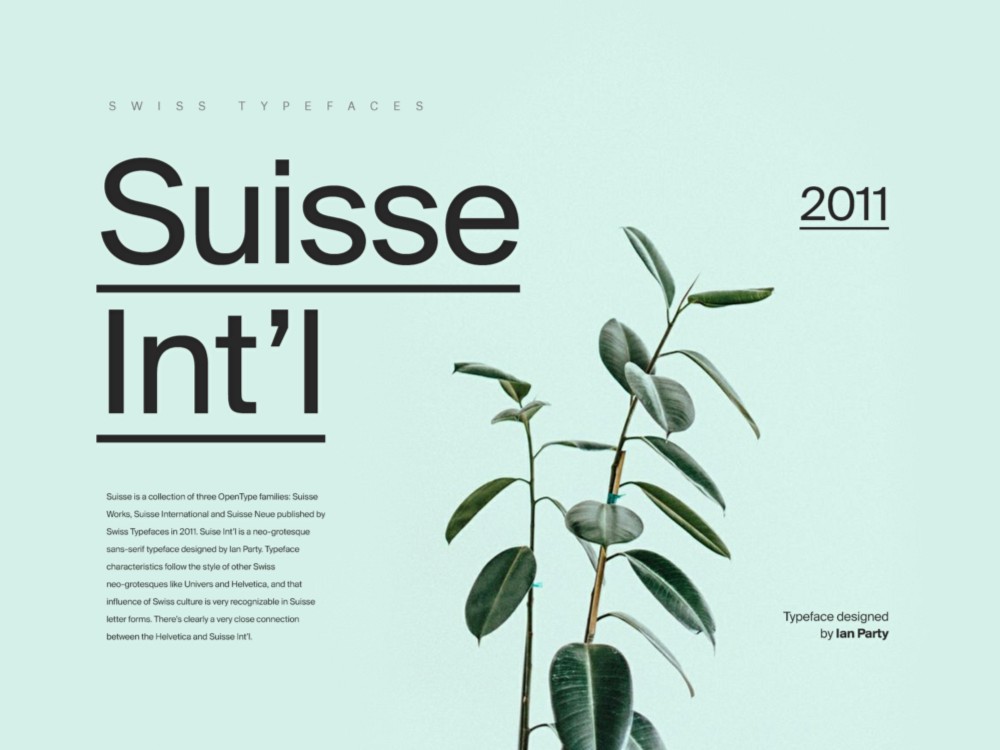
2. Inter
- A versatile typeface with exceptional readability, designed for both screen and print.
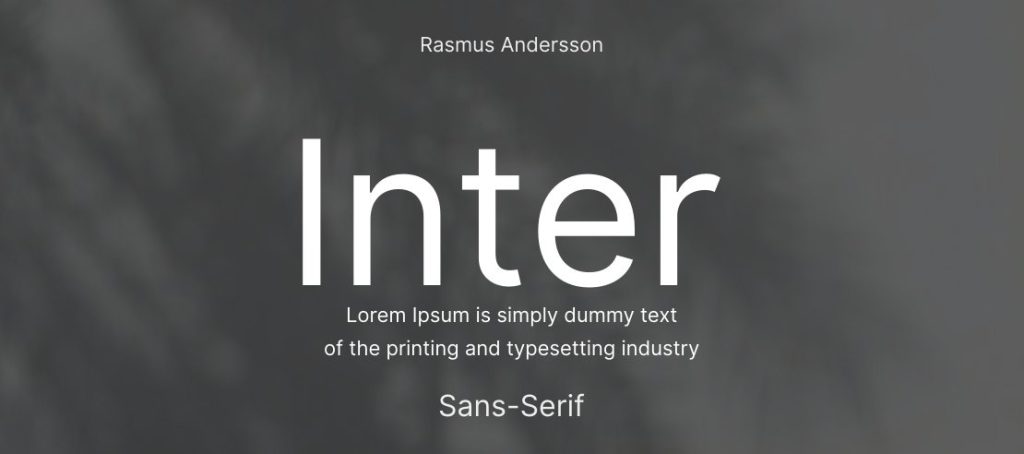
3. Poppins
- Rounded, geometric sans-serif font ideal for bold, contemporary designs.
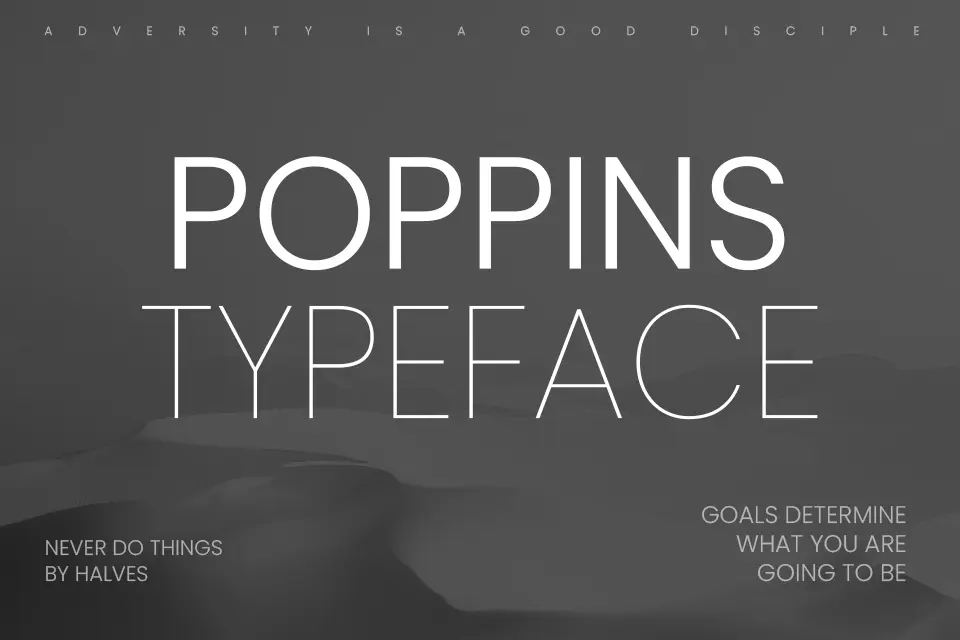
4. Futura
- A classic geometric sans-serif, timeless and modern, widely used in design and branding.
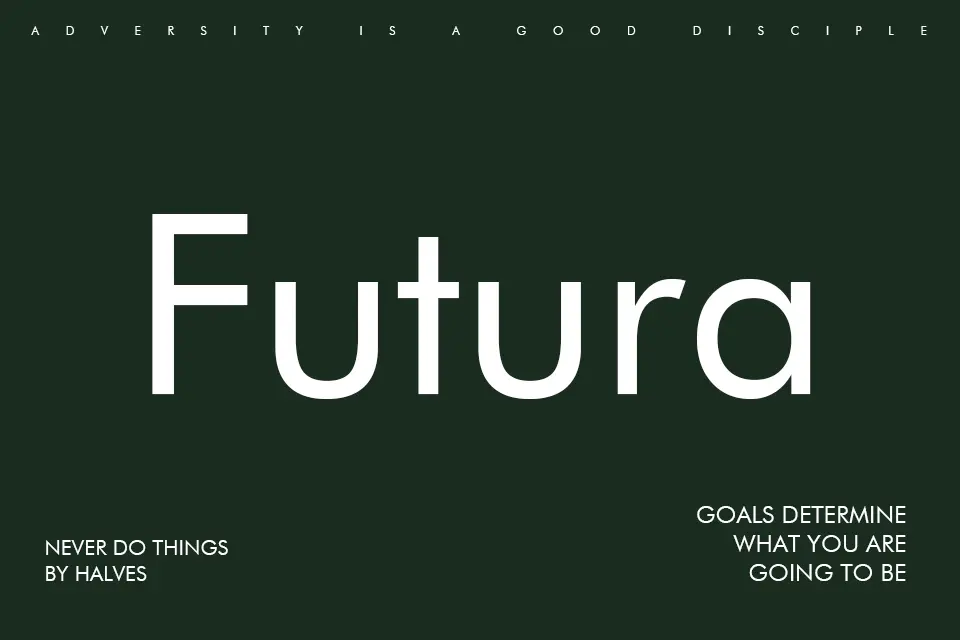
5. Circular
- A rounded sans-serif that has gained popularity for its soft, approachable design.
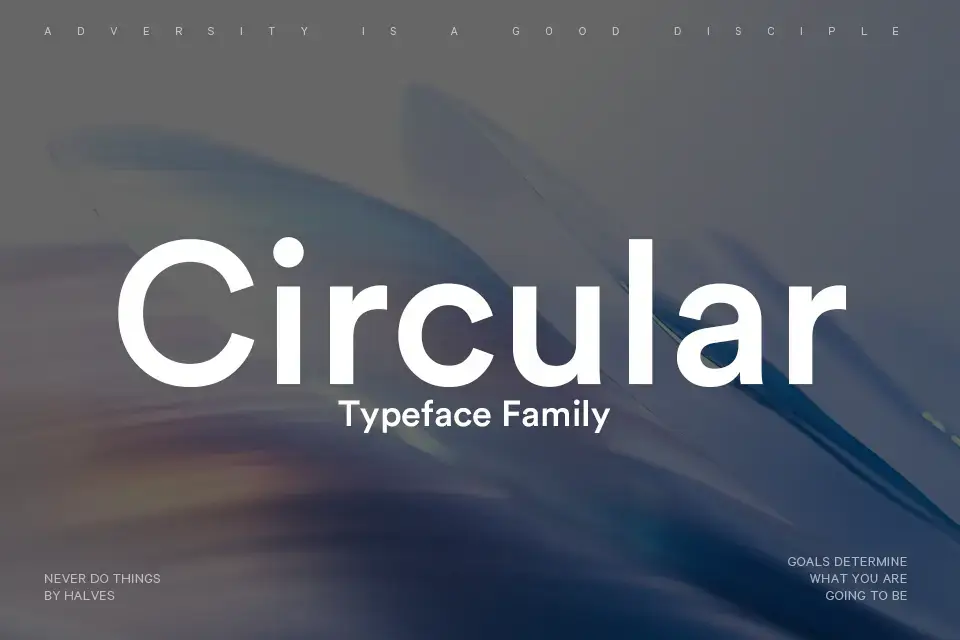
6. Lora
- A serif font with roots in calligraphy, providing a perfect blend of classic and modern aesthetics.
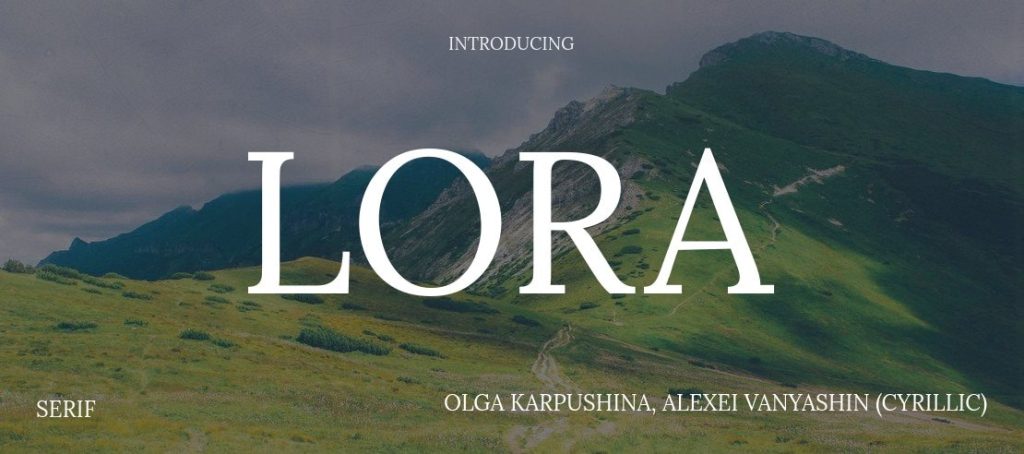
7. Avenir Next
- A refined and elegant typeface with a modern feel, excellent for minimalist designs.
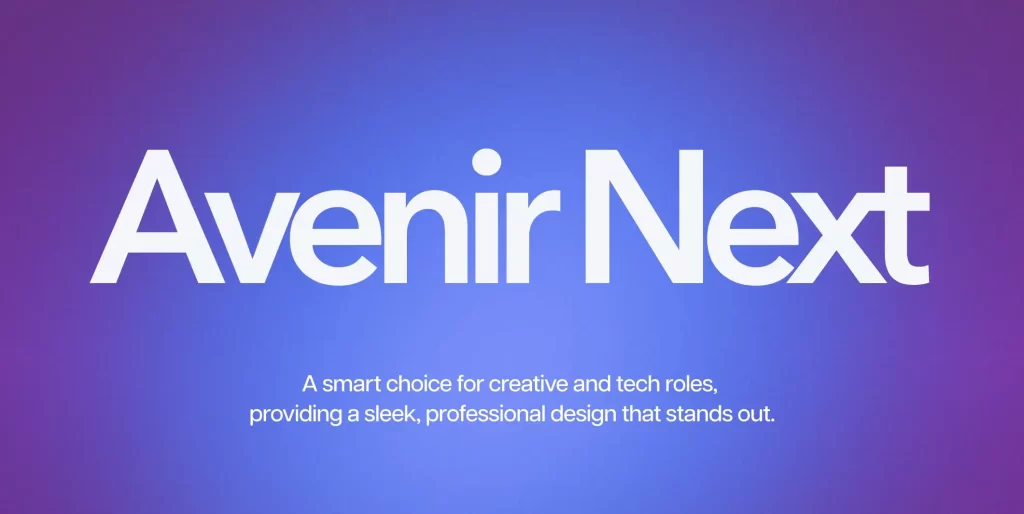
8. Roboto
- One of the most popular Google Fonts, perfect for both body text and headings with its versatile, clean design.
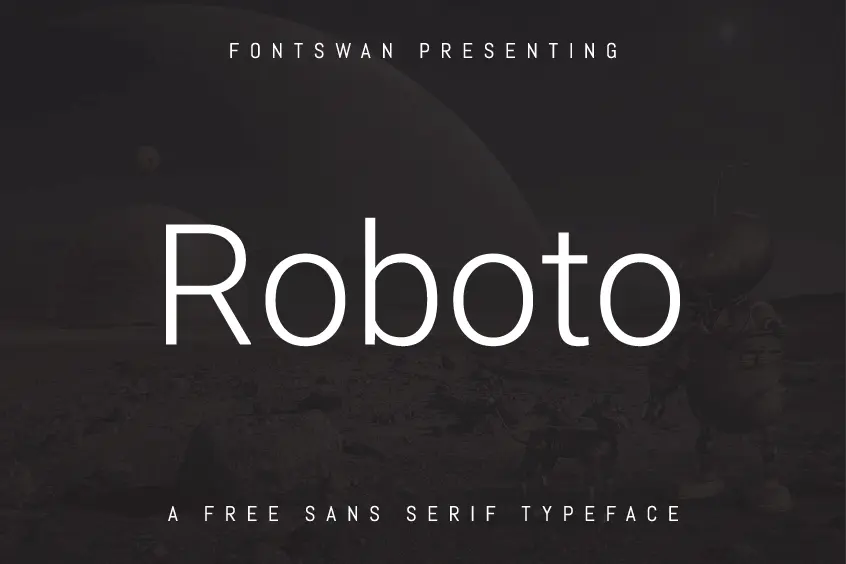
9. Montserrat
- A contemporary sans-serif with a distinct urban feel, often used for web headings and branding.
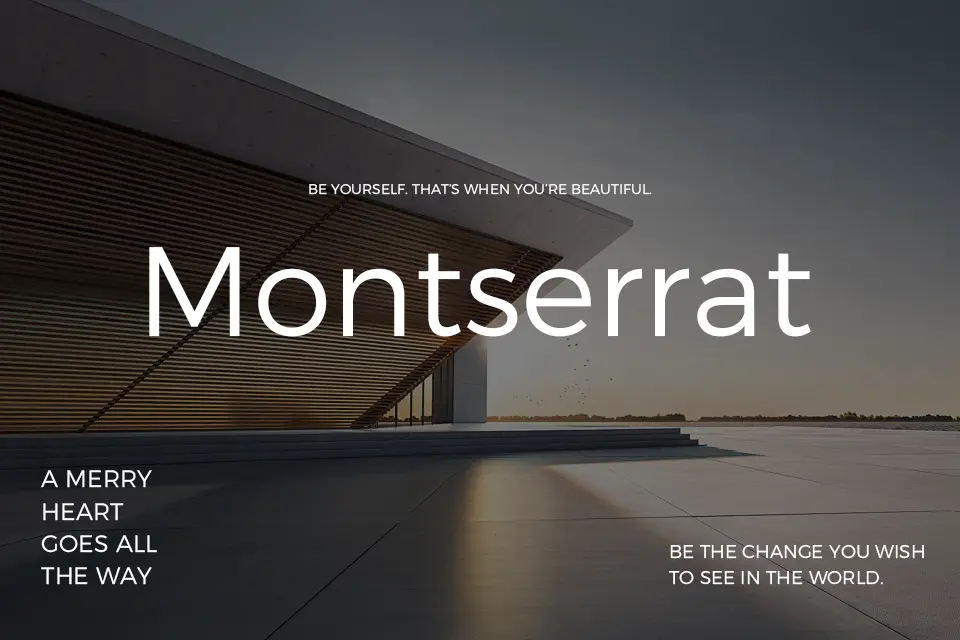
10. Playfair Display
- A modern serif with high contrast and old-style charm, great for fashion, editorial, and upscale brands.
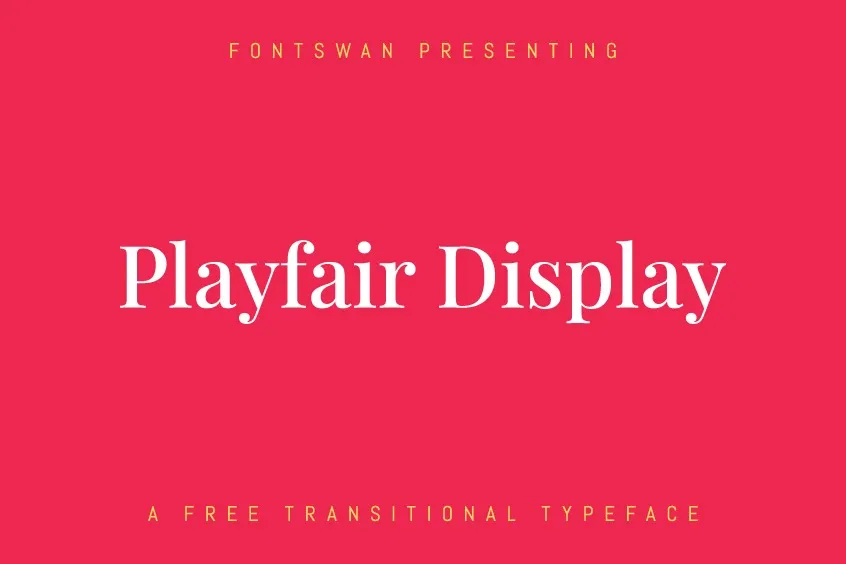
11. Merriweather
- A serif font optimized for screen readability with a slightly condensed feel, perfect for both web and print.
12. Source Sans Pro
- A clean, highly legible sans-serif designed for user interfaces and long reading text.
13. Gloock
- A minimalist sans-serif font with great structure, perfect for modern web design.
14. Karla
- A versatile sans-serif with rounded terminals, great for digital screens.
15. Bodoni
- A high-contrast serif font that creates a dramatic and sophisticated feel, great for fashion or luxury brands.
16. Proxima Nova
- A hybrid of humanist and geometric design, this font is widely used for its clean and modern look.
17. Lato
- A versatile, neutral sans-serif that adapts to any style, making it perfect for a wide range of projects.
18. Tisa
- A humanist serif font with a modern twist, offering clarity and legibility, ideal for editorial and long-form content.
19. Quicksand
- A rounded, modern sans-serif with a friendly vibe, ideal for web design and informal branding.
20. Baskerville
- A traditional serif with modern sensibilities, known for its elegance and readability in print and web content.
21. Roboto Slab
- A slab-serif version of Roboto, perfect for headlines and bold designs.
22. Fira Sans
- A humanist sans-serif typeface designed for screen readability, making it ideal for web interfaces.
23. Cabin
- A clean, modern font with subtle curves, great for user-friendly websites and digital content.